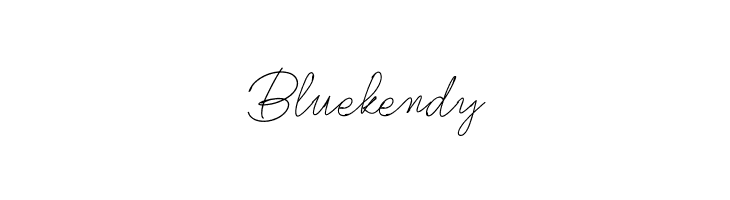
A bold, rugged font with a linocut-inspired, hand-carved appearance.
A dynamic and elegant script font with fluid, connected letterforms.
A flowing, cursive script font with elegant, interconnected characters.
A dynamic and lively script font with flowing, interconnected letterforms.
A bold, handwritten font with fluid strokes and a casual, energetic style.
A cursive, calligraphy-inspired font with elegant loops and swashes.
An elegant, flowing script font with smooth, cursive strokes and graceful curves.
Elegant script font with decorative flourishes.
A dynamic and flowing script font with elegant, slightly slanted letterforms.
A dynamic, cursive script font with high contrast and elegant flow.
An elegant, cursive font with decorative loops and swirls.
A playful, handwritten font with fluid strokes and a casual appearance.
A flowing, elegant script font with bold, dynamic uppercase and graceful lowercase letters.
A playful and bold handwritten script font with fluid strokes.
Abstract, hand-drawn geometric display font with spherical motifs.
Abstract geometric display font with patterned circles and outlined squares.
A bold, playful handwritten font with a casual and friendly vibe.
A bold, playful font with rounded edges and a modern, whimsical style.
A bold, playful font with rounded edges and a whimsical style.
A bold, geometric font with a playful and dynamic style.
A bold, playful font with a strong, modern presence.
A playful, handwritten-style font with bold, rounded characters.
A bold, textured font with a grid-like pattern, ideal for decorative use.
A playful, curly font with bold, rounded characters and whimsical swirls.
A bold, flowing script font with dynamic and expressive strokes.
A bold, retro-inspired font with geometric shapes and strong visual impact.
A bold slab serif font with strong, block-like serifs and a robust appearance.
A hand-drawn, blueprint-inspired font with sketch-like outlines and shading.
A casual, handwritten font with a lively and approachable style.
A geometric, blueprint-inspired font with overlapping linear elements.